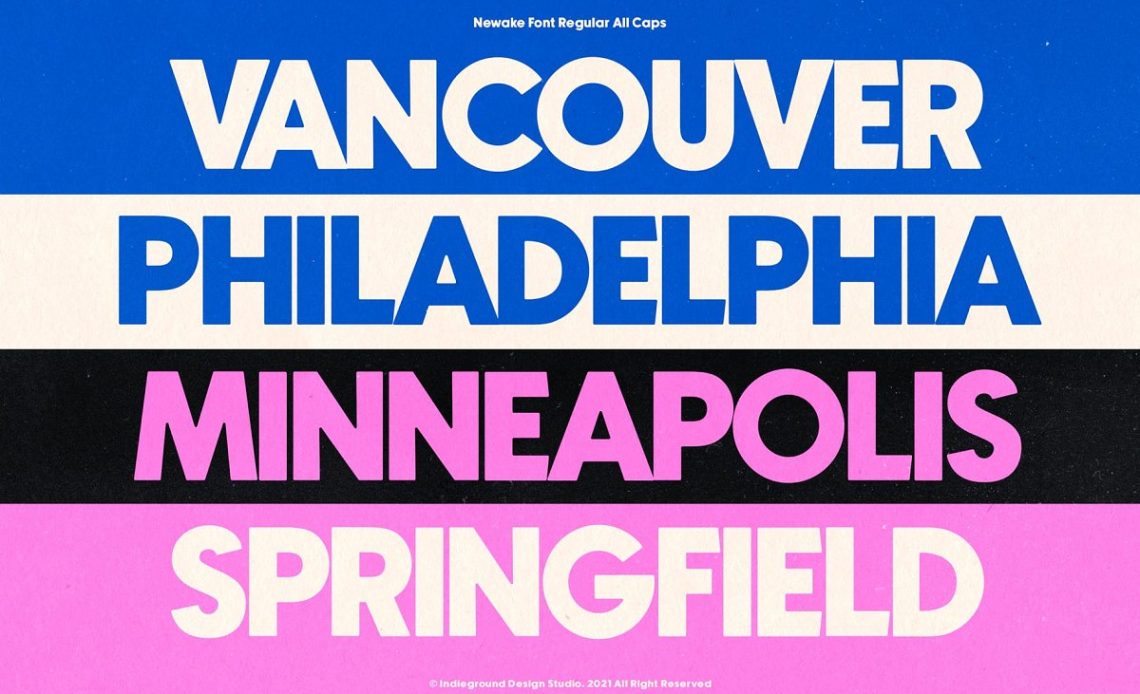
Introducing the all-new and updated Newake Font by Indieground Design, the perfect sans-serif font for all your graphic design and typography-related projects. If you're looking for a font that's versatile and can be used for titles, logos, editorial design, packaging, and web design, then the Newake Font is the answer you've been searching for!
What makes the Newake Font unique is its slightly rounded corners, giving an elegant line to your text and quotes. This font has a minimalistic atmosphere, which will give a cool style and weight to all your artistic compositions. You won't find this level of elegance and uniqueness in any other font.
Newake Font is not only a stylish font but also a functional one. With the new update, 160+ new characters have been added to the font, including the most popular letters from Central & Western Europe Alphabets and other special characters. This feature makes the Newake Font an ideal choice for those who want to create eye-catching bubble letters.
In summary, if you're looking for a font that's stylish, functional, and perfect for all your graphic design and typography-related projects, the Newake Font is the right choice for you. With its updated characters set and elegant rounded corners, this font is guaranteed to make your artwork stand out from the crowd.